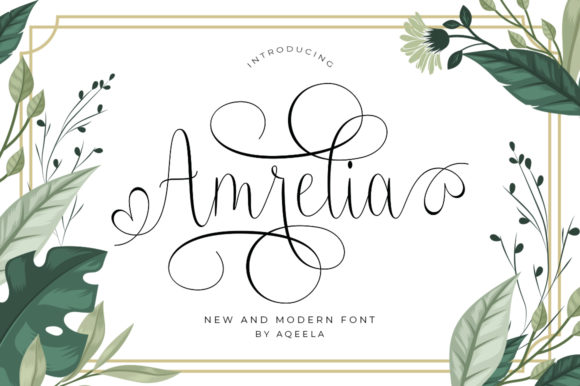
Step into the enchanting realm of Amrelia Font, a handwritten masterpiece crafted with love by Aqeela Studio. This script font exudes a captivating aura of delicate charm, inviting you to explore a world of artistic expression. The playful curves and rounded characters of Amrelia dance across the page, evoking a sense of whimsical delight. Unleash your creativity and transform your designs into captivating works of art.
Embrace the versatility of Amrelia, a font that effortlessly adapts to a multitude of projects. From elegant wedding invitations that radiate romance to playful greeting cards that spread joy, Amrelia effortlessly captivates hearts. Embark on a creative journey and let your imagination soar as you create stunning social media posts, eye-catching branding materials, or heartfelt stationary art. The possibilities are as boundless as your imagination.
With Amrelia, intricate details meet boundless creativity, allowing you to add a touch of magic to every creation. Intricately designed heart-themed swashes await your touch, ready to adorn your designs with a flourish of elegance. Elevate your projects with Amrelia's enchanting presence and leave a lasting impression on all who encounter it.
Amrelia Font beckons you to embrace the extraordinary and unlock a realm of creative possibilities. Experience the joy of crafting unique and expressive designs that speak volumes. Let Amrelia be your muse as you embark on a journey of artistic discovery, transforming your ideas into stunning realities. Dare to be captivated by the allure of Amrelia and witness the boundless wonders it holds.